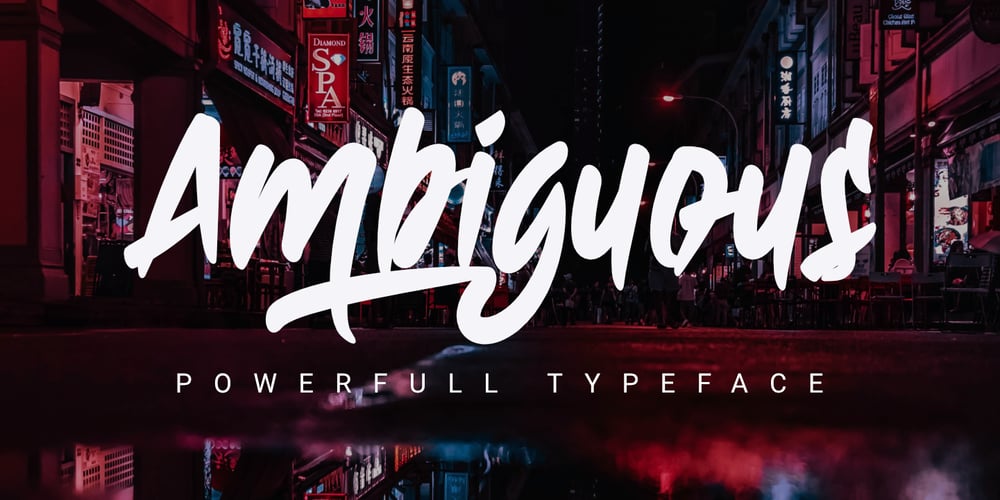
Ambiguous
Ambiguous font
Ambiguous Font Family was designed by Toni Dzulham and published by Dumadi. Ambiguous contains 1 styles and family package options. Ambiguous is a very powerful font suitable for any branding design in your project!This font is perfect for shirt designs, websites, home decor, branding, blogs, logos, posters, fashion, custom stickers, music, food menus, games, magazines, and many others.